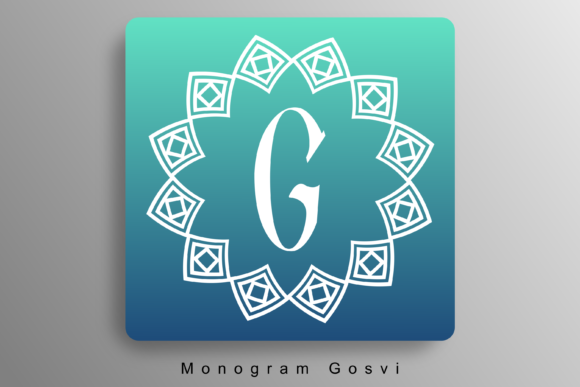
Dive into the world of Monogram Gosvi Font, a decorative font that dances upon the page with delicate charm and intricate elegance. Crafted by Rusd studio, this font is a visual symphony that will transform your creative projects into captivating expressions of art.
Inspired by the beauty of spring, Monogram Gosvi Font exudes a captivating charm that speaks of fresh beginnings, blooming flowers, and a world reborn. Each glyph has been meticulously designed to embody the essence of this enchanting season, capturing the delicate balance between nature's simplicity and nature's intricate details.
With Monogram Gosvi Font, your words will blossom into a tapestry of elegance, leaving a lasting impression on all who behold it. Envision your wedding invitations adorned with this exquisite font, carrying your heartfelt message of love and commitment with a touch of sophistication. Picture your love letters penned in this enchanting script, conveying emotions with a depth that mere words cannot capture.
Allow Monogram Gosvi Font to infuse your branding with a touch of springtime allure. Its delicate strokes and intricate details will create a visual identity that speaks to your customers' hearts, evoking a sense of warmth, joy, and endless possibilities. Whether you're a graphic designer seeking to add a touch of magic to your creations or a business owner longing for a unique and memorable brand identity, Monogram Gosvi Font is your muse, your gateway to a world of enchanting visual communication.
This remarkable font is more than just a design tool; it's a gateway to a world where creativity and imagination intertwine to create something truly extraordinary. Embrace Monogram Gosvi Font, and let your creative spirit run wild, for its versatility knows no bounds. From elegant invitations to eye-catching logos, from enchanting posters to captivating social media posts, this font will elevate your designs to new heights.